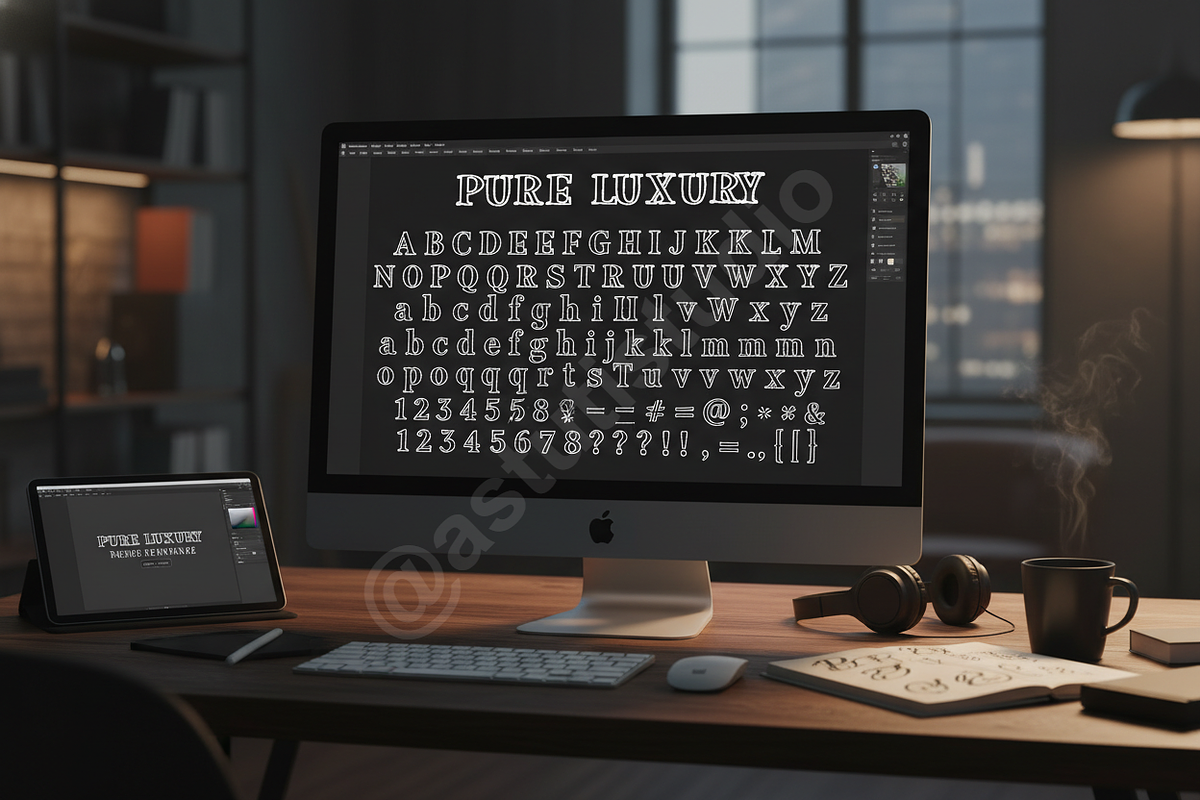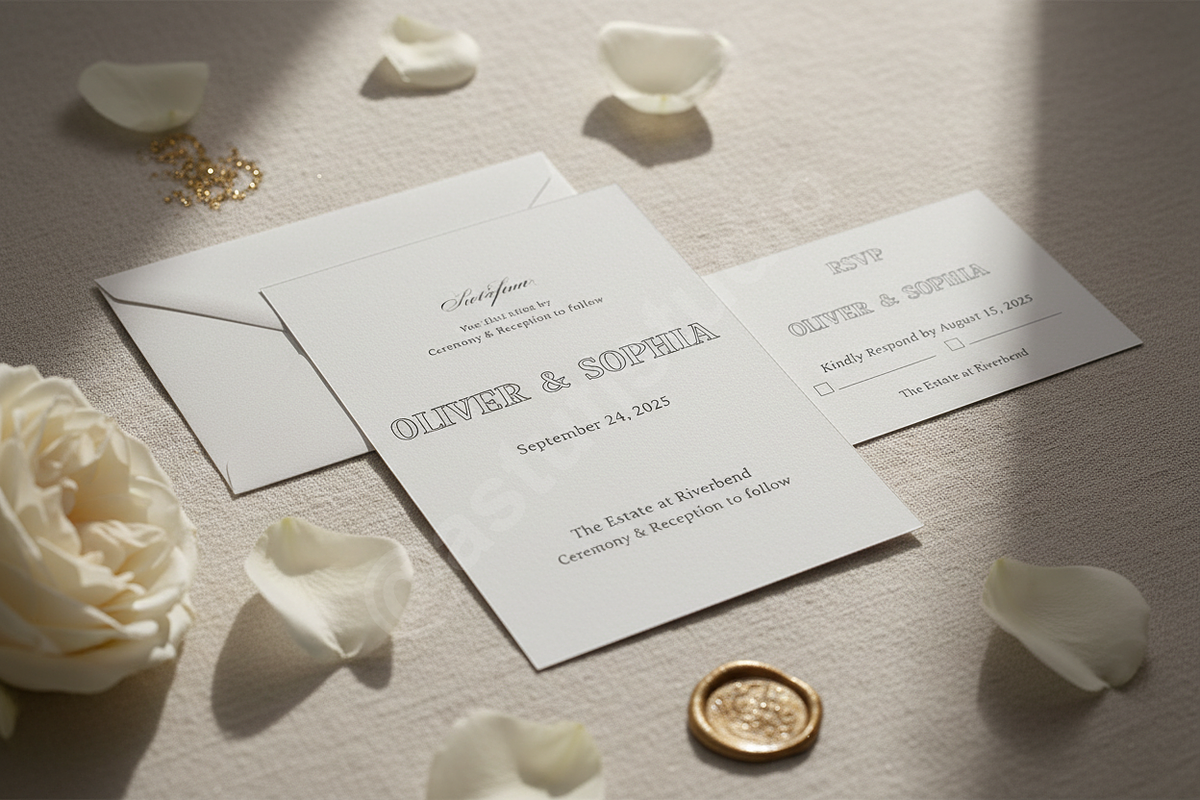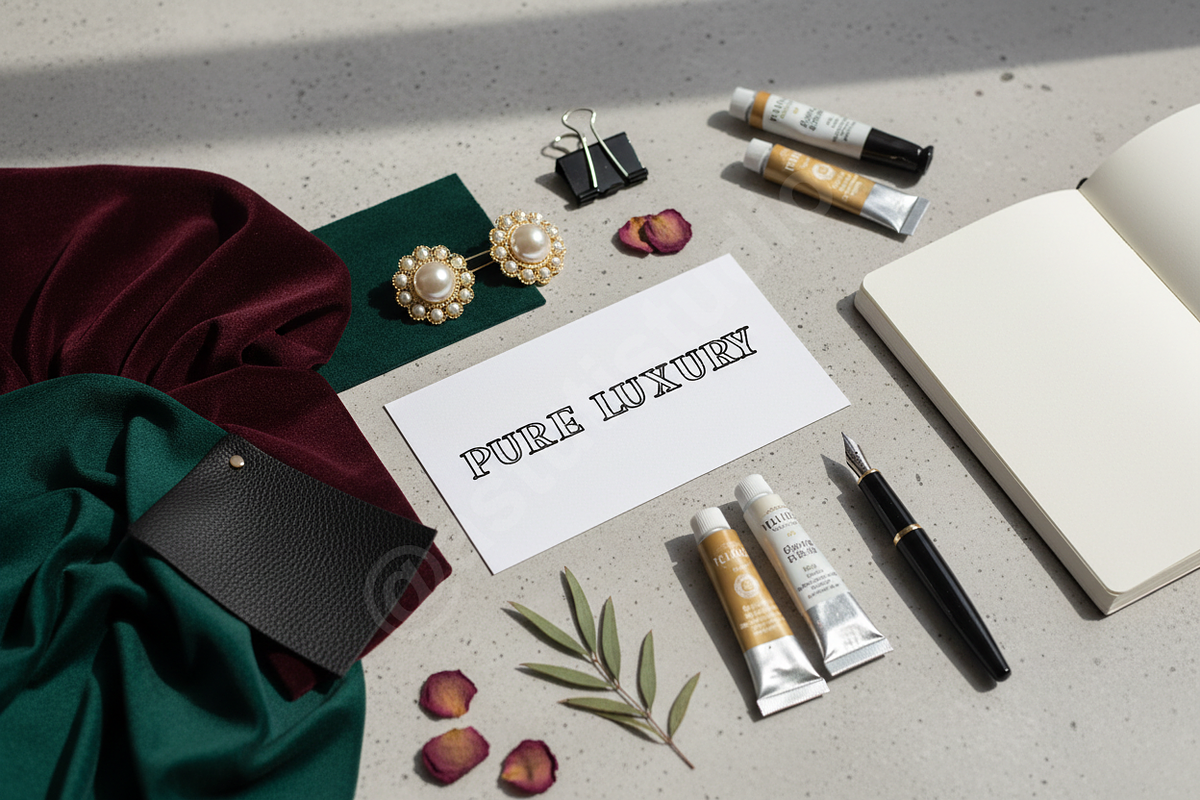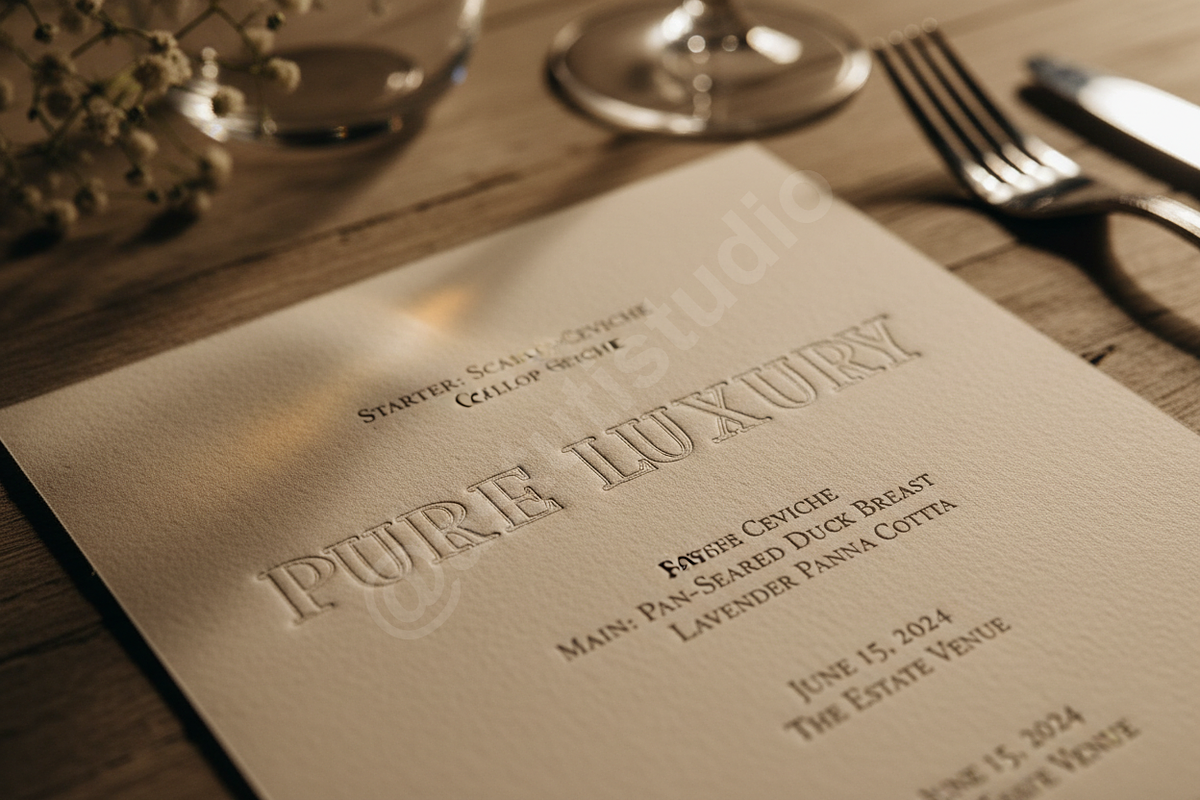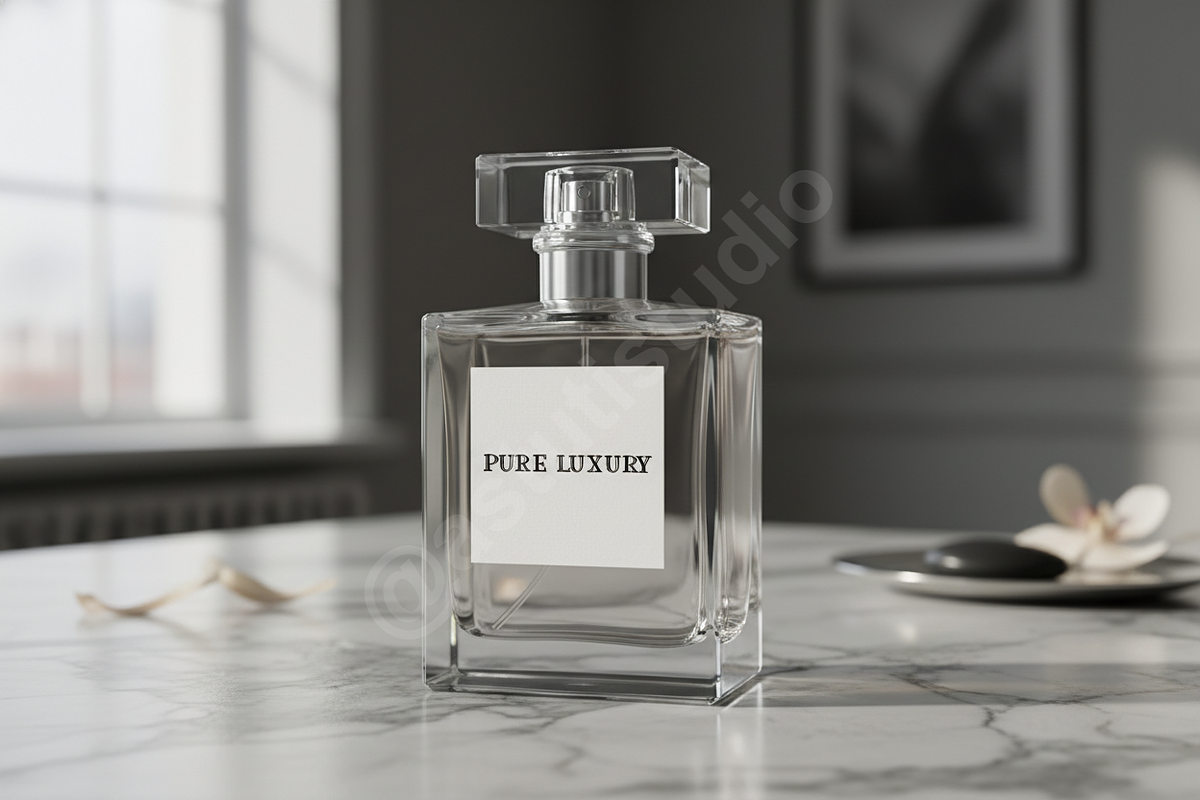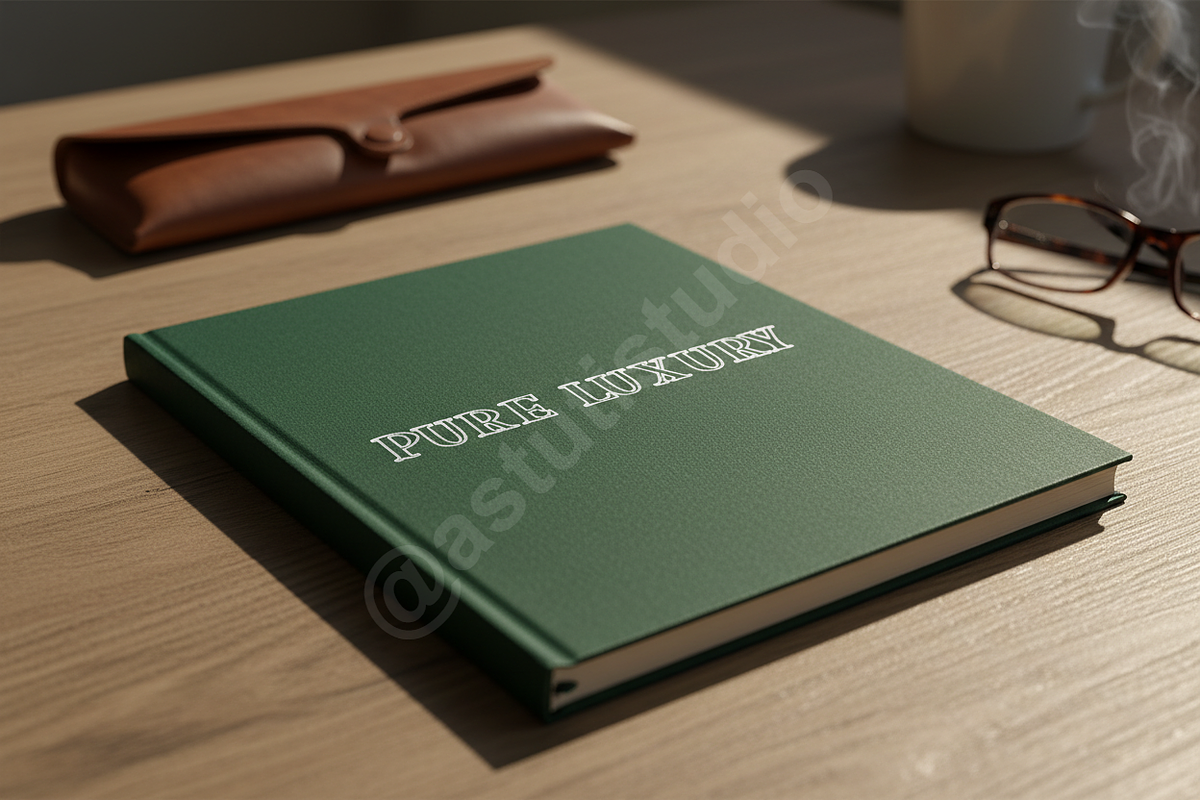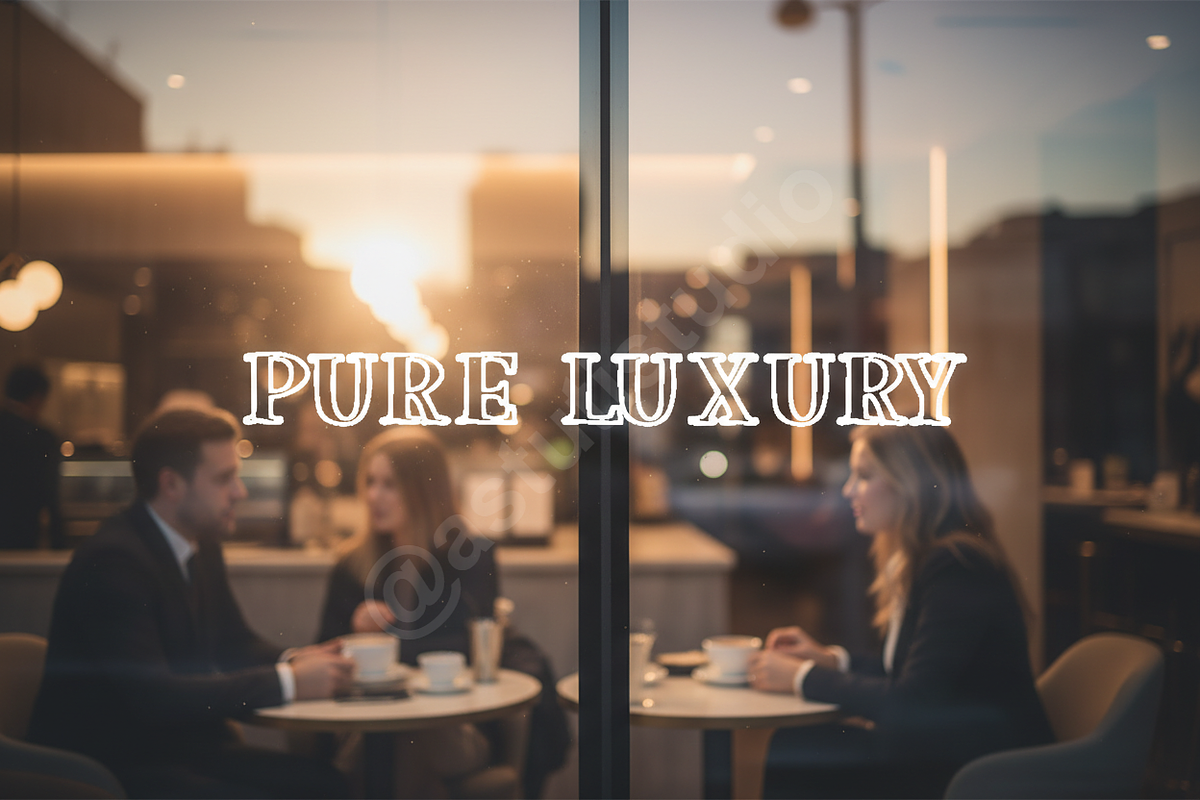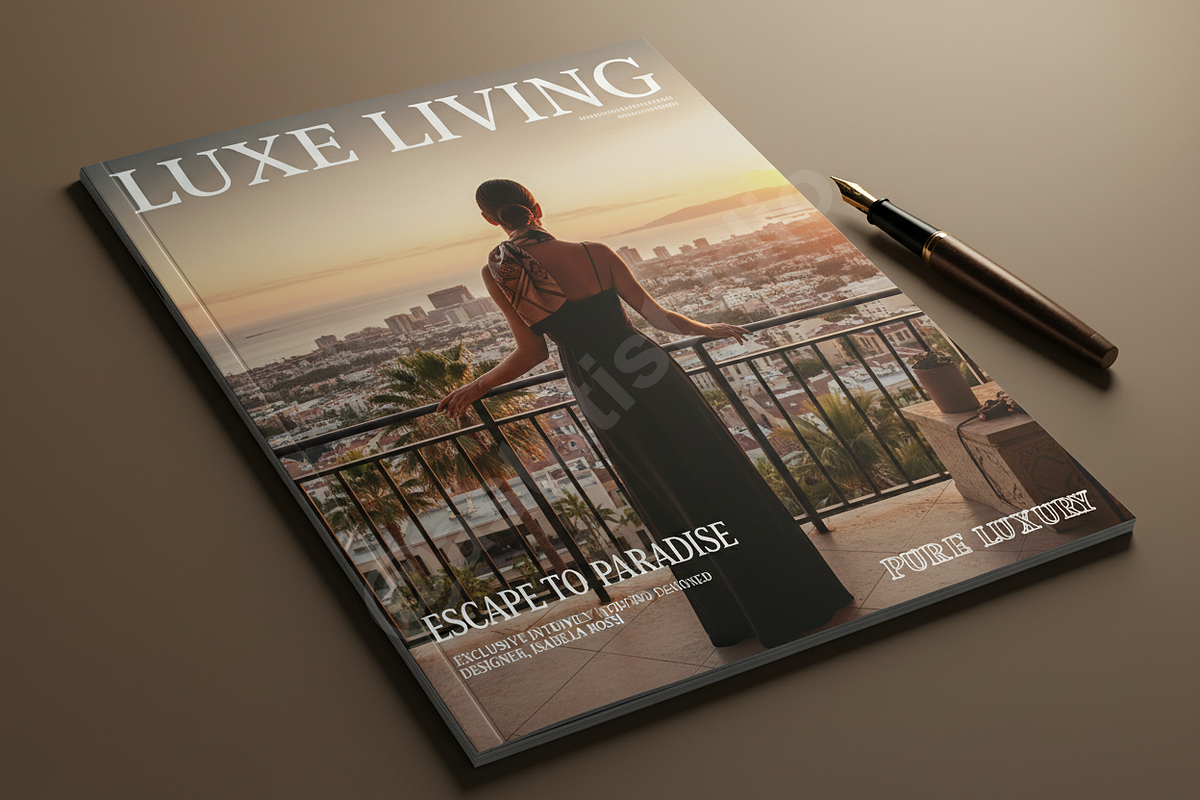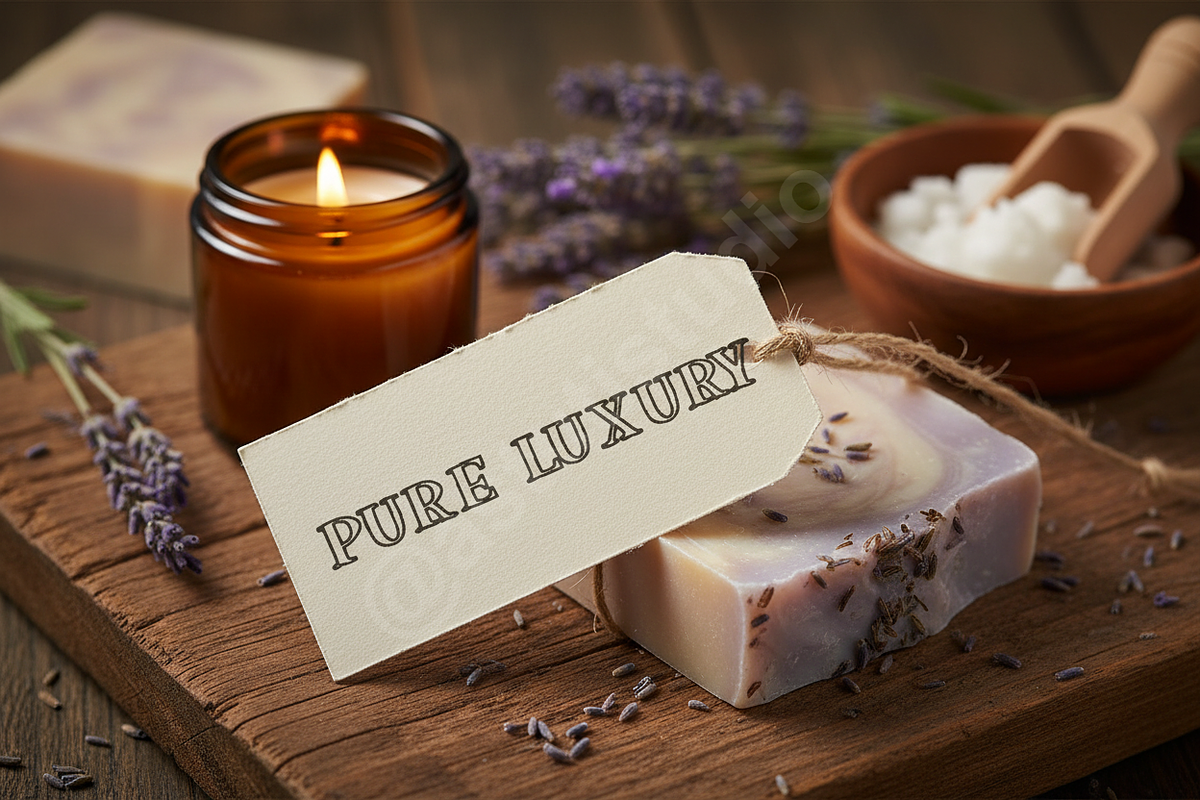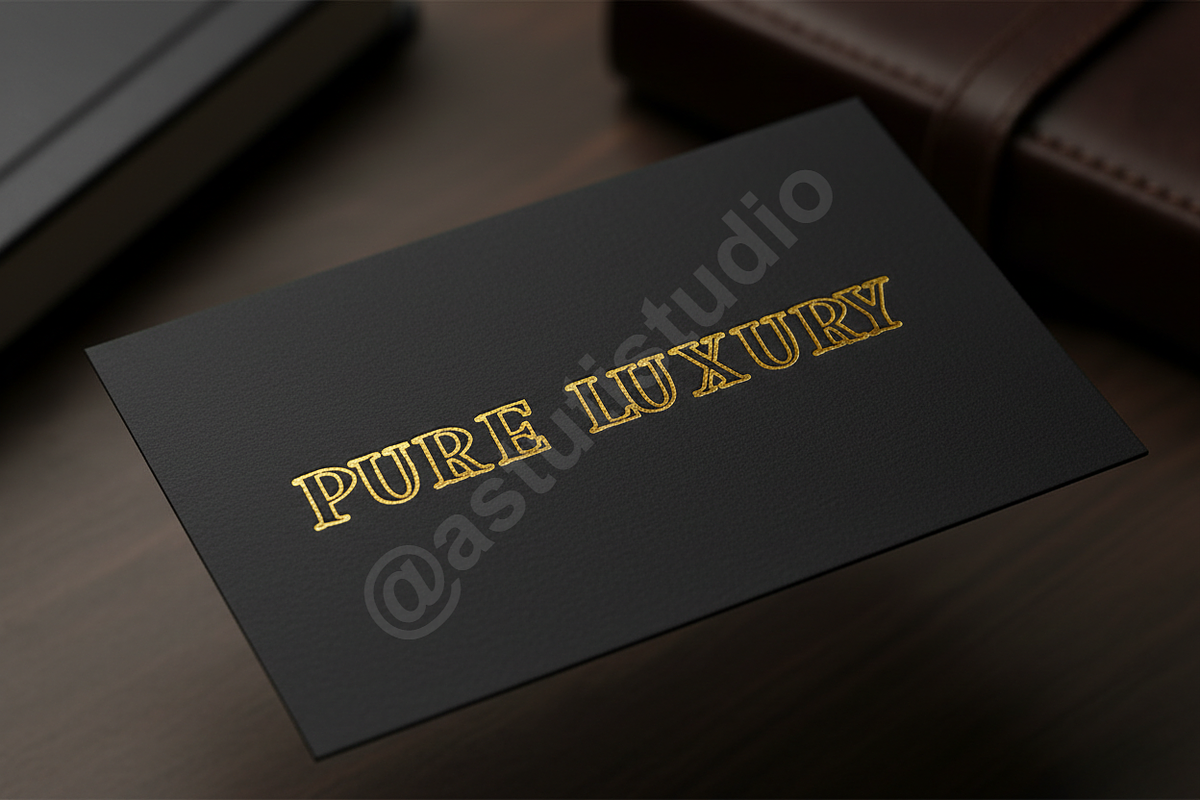
Ficimo | Luxury High-Contrast Serif
Ficimo is an exquisite modern serif typeface designed for the discerning creative professional. Drawing inspiration from classic luxury aesthetics and contemporary minimalism, Ficimo delivers immediate sophistication and undeniable elegance to any design project. Its sharp contrasts, high readability, and refined curves make it the ultimate typographic tool for elevating high-end brands, compelling editorial layouts, and impactful social media campaigns. It perfectly balances tradition with a modern, fashion-forward approach, ensuring your message is conveyed with authority and style.
=== DESIGN HIGHLIGHTS ===
- Versatile Style: Optimized for massive headlines, refined body text, distinctive logos, luxury packaging, and sleek digital interfaces.
- Premium Feel: Engineered specifically for luxury goods, professional magazines, and high-fashion editorial work.
- Multilingual Support: Extensive glyph set covering numerous international languages.
- OpenType Features: Includes standard ligatures, stylistic alternates, and discretionary features for unique, customized typographic control.
- Optimized Kerning: Professionally spaced for seamless text flow and perfect visual rhythm.